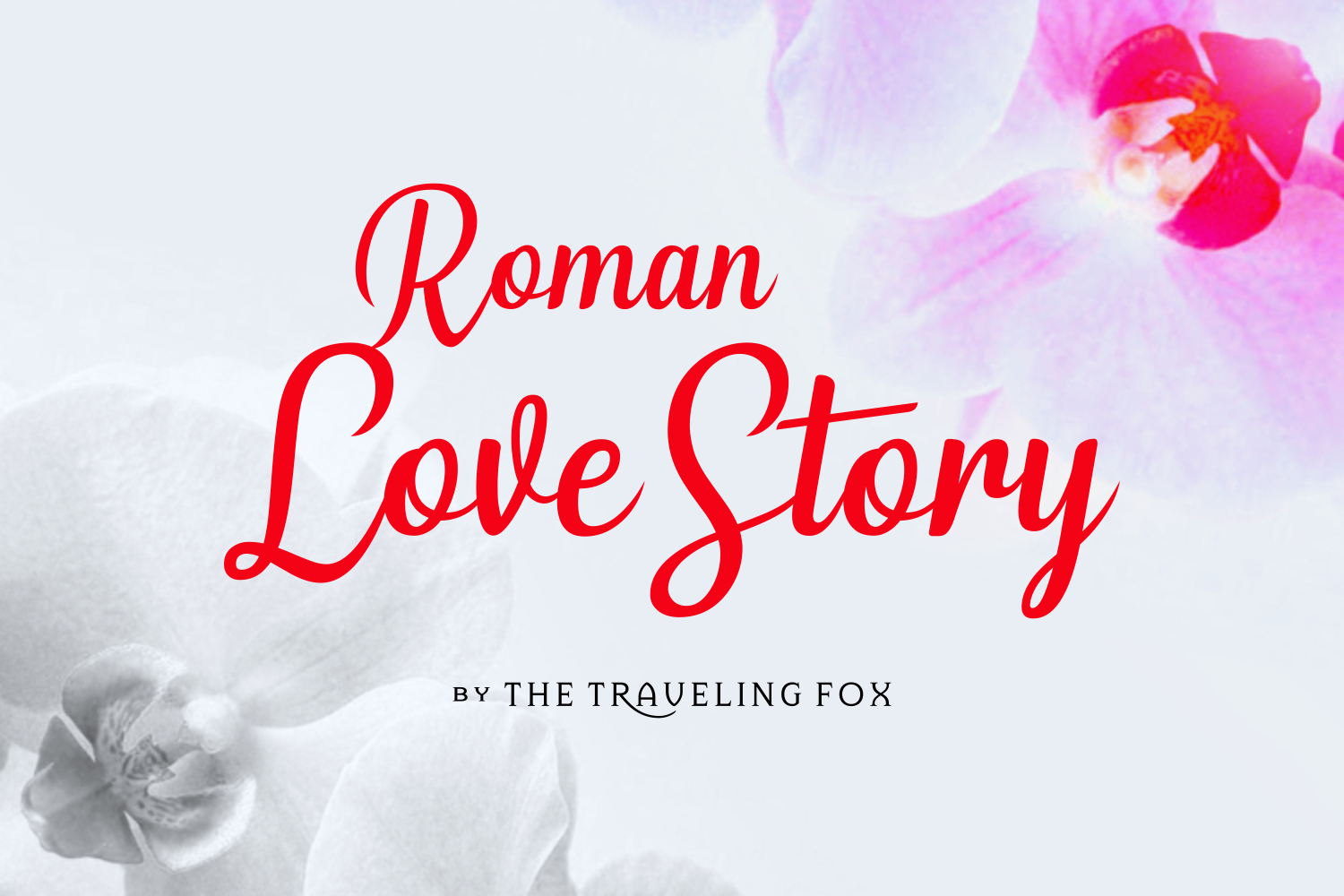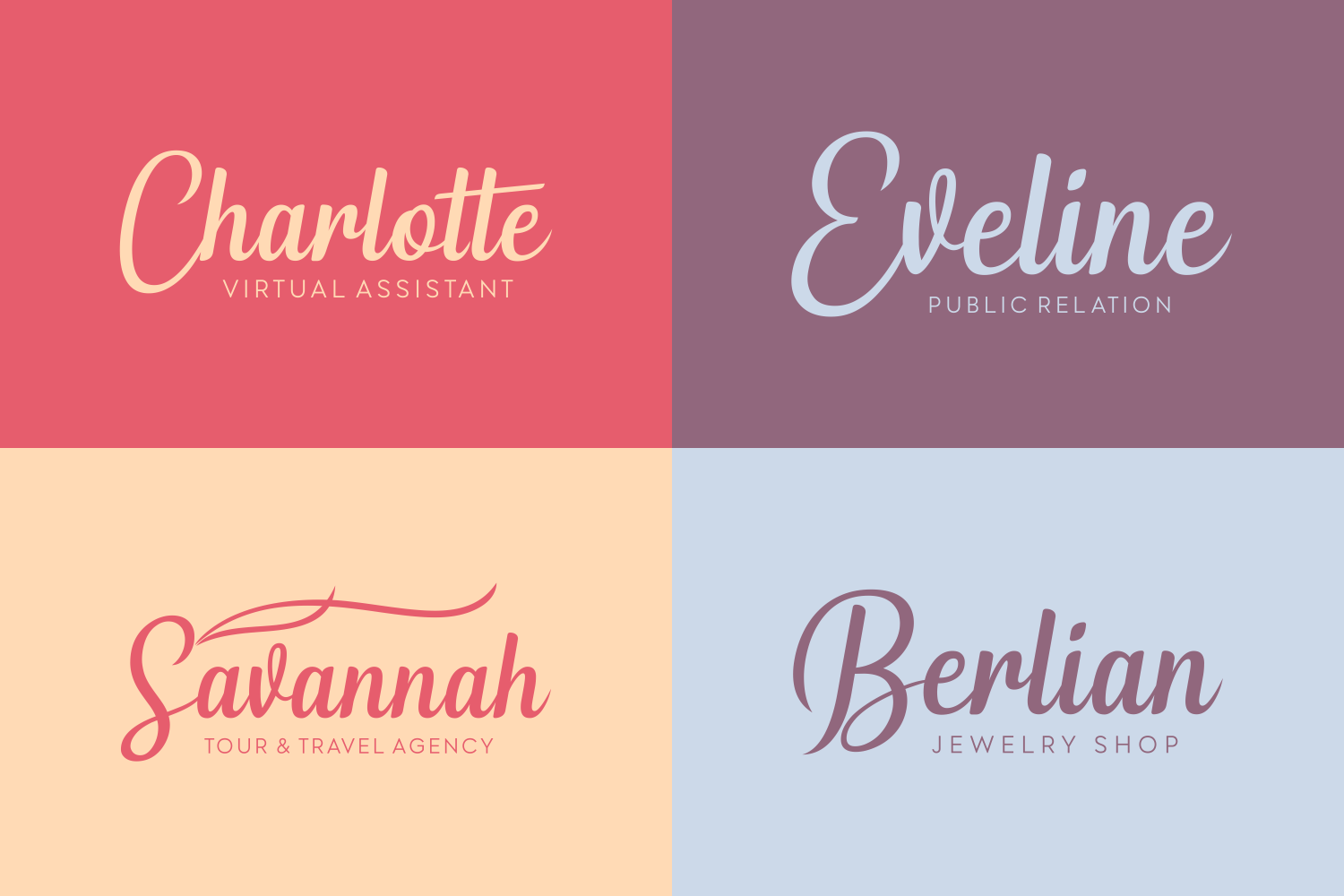
Roman Love Story Font
About Roman Love Story Font
The Roman Love Story is a sweet script font that tells stories in a classically traditional way, with a fun modern twist.
This typeface features solid letters that perfectly connect and turn words into soft flowing pieces of art.
It’s made to be very legible. The letters will have great impact as headlines & titles, but will also allow large pieces of (body) text to be read very easily.